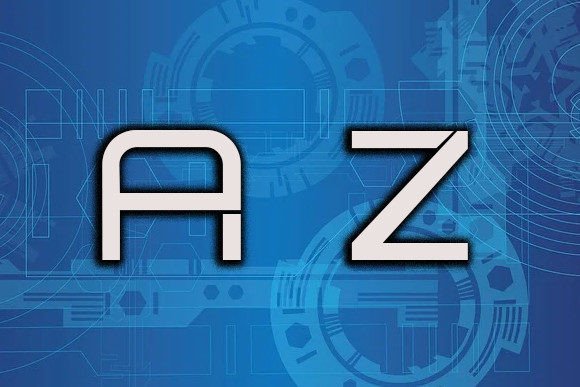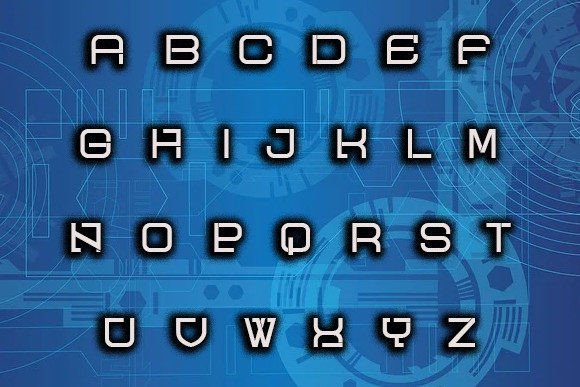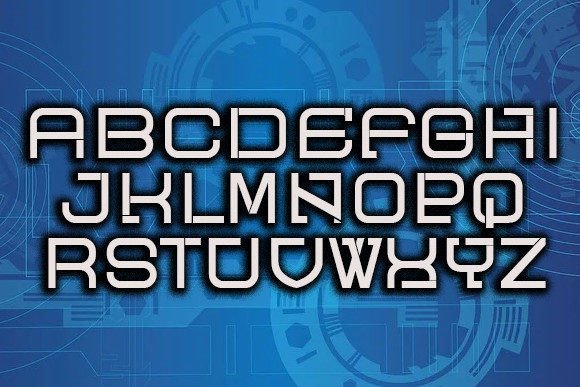
Introduction to League Font
League is a techno display font with a futuristic and dynamic design.
Its bold and angular characters are inspired by science-fiction and technology, creating a visual impact that captures the attention of the viewer This font is perfect for creating futuristic and high-tech designs, such as video games, movies, and websites.
Key Features of League Font